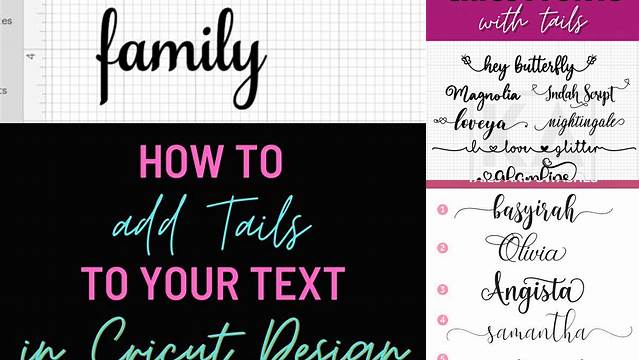
Cricut Access Fonts With Tails: Unleash Your Creativity!
Hey crafting enthusiasts! Are you ready to take your Cricut projects to the next level? Today, we're diving deep into the wonderful world of Cricut Access fonts with tails. These fonts are seriously awesome, offering a touch of elegance, flair, and personality that can transform your designs from simple to stunning. Get ready to explore how these fonts work, where to find them, and how to make the most of them in your creative endeavors. Let's jump in!
Finding Your Perfect Cricut Access Font with Tails
So, what exactly are we talking about when we say "fonts with tails"? Essentially, these are fonts where the letters have extended lines or flourishes that gracefully connect to the next letter, creating a flowing, handwritten look. Think of elegant scripts, romantic cursive, and fonts that instantly add a touch of sophistication to anything you create. The beauty of Cricut Access is that it provides a treasure trove of these fonts, ready for you to use! Finding the perfect font with tails is the first step toward crafting gorgeous designs. Start by exploring the Cricut Design Space library. In the font selection, you can filter by font style, which will help narrow down your choices. Look for categories like "script," "cursive," or "handwritten." These are the most likely places to find fonts with tails. When you're browsing, pay close attention to the previews. Many fonts with tails will show how the letters connect, so you can get a sense of the overall look. Consider the project you're working on. Are you creating a wedding invitation, a personalized gift, or a home decor piece? The font should complement the style of the project. A playful font might be great for kids' projects, but an elegant script is more fitting for formal events. Don't be afraid to experiment! Try out a few different fonts with tails on your design to see which one looks best. You can easily change the font in Design Space until you find the perfect match. Remember that the key is to find a font that resonates with you and enhances your project.
The Benefits of Using Fonts with Tails
Using fonts with tails can take your Cricut projects to the next level. The flowing, connected letters create a sense of artistry and elegance. They can elevate projects from simple to extraordinary. Fonts with tails are perfect for adding a personal touch to gifts, invitations, and home decor. They can transform a plain project into something special. These fonts are ideal for conveying a sense of sophistication. Consider how a beautifully crafted script font can turn a simple name tag into a memorable keepsake. This is where the magic happens! From creating beautiful wedding invitations to adding a personal touch to your home decor, the possibilities are endless. Fonts with tails can also enhance the readability of your designs. When used correctly, the connected letters can create a more visually appealing and harmonious look. Imagine the impact of a delicate cursive font on a personalized sign or the elegant touch it adds to your project. When used in moderation, these fonts can make your projects stand out. This added style makes a memorable impression, and your creations will be talked about!
Troubleshooting Font Connection Issues
Sometimes, the letters in a font with tails might not connect perfectly, or you might encounter other issues. Don't worry; these are usually easy fixes! Make sure that the letters are overlapping slightly. If the letters aren't touching, the tail won't connect properly. Adjust the letter spacing to ensure they overlap. After the letters are overlapping, use the "Weld" feature. This will join the letters together, creating a seamless design. If you're having trouble with specific letters, you can manually adjust their positions. Ungroup the text, and then move individual letters slightly to achieve the desired connection. Another common issue is the appearance of unwanted cut lines. This can happen if the tails overlap too much or if the font is not designed for cutting. To fix this, use the "Weld" feature to remove any overlapping lines. If you are still facing issues, make sure your Design Space software is updated to the latest version. Sometimes, software updates can resolve compatibility issues. Finally, consider the cutting settings you're using. Ensure your blade is set to the appropriate material and pressure. Experiment with different settings until you get a clean cut. With a little patience and these tips, you'll be creating beautiful designs in no time!
Pairing Fonts with Tails: Complementary Combinations
One of the most exciting aspects of working with Cricut Access fonts with tails is the opportunity to combine them with other fonts. The art of font pairing can elevate your designs from good to exceptional. Choosing the right font combinations can create visual harmony and add depth to your projects. Consider what you want to communicate with your design. A bold, sans-serif font can provide a strong contrast to a delicate script font with tails, drawing attention to both elements. Think of this example: use a script font for a name, and pair it with a simple, easy-to-read font for the date. The two fonts work together to make the design stand out! Here are some tips to guide you through font pairing: Select a font with tails as your primary font and use a simpler font for headings or supporting text. The contrasting styles will make your design visually interesting. Consider using a sans-serif font for the body text and a script font for the titles or accents. Make sure the fonts complement each other. A good way to find the right fonts is to look for fonts from the same design family. These fonts are created to work together, making them easy to match. Do not use too many different fonts in one design. This will distract the eye. Instead, stick to two or three fonts at most. Test your font combinations before you start cutting. Play around with different combinations to see what works best. Adjust the font size and spacing to enhance the overall look. With some creativity, you will be creating amazing font combinations.
Font Pairing Examples for Different Projects
Let's explore some font pairing examples to spark your creativity for using Cricut Access fonts with tails! For wedding invitations, use an elegant script font with tails for the names, along with a classic serif font for the body text. This combination gives a sense of romance and formality. When designing baby shower invitations, use a playful script font for the baby's name and a clear sans-serif font for the details. These fonts capture the lightheartedness of the event. For personalized gifts, use a bold, modern font for the name and a script font with tails for a heartfelt message. This combination will make the gift unique. When creating home decor pieces, use a rustic or farmhouse-style font paired with a flowing script font. The contrasts create a balance between the modern and vintage design. For labels and organization, choose a simple, easy-to-read sans-serif font paired with a script font for the label name. In each case, the key is to balance the fonts to create a cohesive and visually appealing design. Think about how the fonts work together to enhance the overall look and feel of your project. The goal is to create a design that grabs attention, conveys the message, and leaves a lasting impression. The beauty of font pairing is that you can experiment and explore your creativity. With some practice, you will be creating amazing font combinations.
Cutting Cricut Access Fonts with Tails: Tips and Tricks
After choosing your font and designing your text, it's time to cut your Cricut Access fonts with tails. This can be a bit tricky, but the result is always worth the effort. To cut these fonts successfully, you'll need the right tools and settings. First, ensure that your blade is sharp. A dull blade can cause uneven cuts and tear the material. A fresh blade will give you the best results. Choose the right material settings for your project. The settings depend on the material you're using. Look for the specific material in Design Space and select it. After selecting the material, consider the size of your design. Fonts with tails are best for larger sizes because smaller details can be lost or cut poorly. Remember to weed your project carefully. Weeding is the process of removing the excess material from your cut design. Take your time and use a weeding tool to remove the small pieces and intricate details. Always do a test cut! Cut a small sample of your design to ensure that the settings are correct and the blade is cutting properly. If the cuts are not clean, adjust the blade settings or the material pressure. Take your time, and you’ll achieve clean cuts. With these tips, you’ll create stunning, professional-looking results.
Best Materials for Cutting Fonts with Tails
When it comes to materials for cutting your Cricut Access fonts with tails, the options are endless! Each material offers a unique look and feel, so consider your project when making your choice. For paper projects, cardstock is an excellent choice. It's easy to cut and comes in a wide variety of colors and finishes. For vinyl projects, permanent vinyl is perfect for creating signs, decals, and personalized gifts. It's durable and weather-resistant. Removable vinyl is ideal for temporary projects, such as wall decals or seasonal decorations. For iron-on projects, heat transfer vinyl (HTV) is the perfect choice. It's used to create custom apparel, bags, and other fabric items. For wood projects, use wood veneer or thin sheets of balsa wood. These materials add texture and dimension to your designs. For fabric projects, use felt or fabric sheets. The materials are perfect for creating patches, appliques, and other fabric crafts. For a more detailed look, explore materials like adhesive foil. The foil adds a touch of elegance to your projects. Experiment with various materials to find the perfect match for your design. Consider the type of project you're working on, the desired look, and the durability of the material. With a little experimentation, you'll discover the materials that help bring your vision to life.
Weeding and Transferring Fonts with Tails
Weeding and transferring your Cricut Access fonts with tails are crucial steps in the crafting process. These steps help ensure your design looks neat and professional. Weeding involves removing the excess material from your cut design. This is especially important for fonts with tails, as they often have intricate details. Start by using a weeding tool to carefully lift and remove the negative spaces. Take your time and work slowly to avoid tearing the material. Use a bright light to better see the details. For vinyl projects, transferring your design onto the final surface requires a transfer sheet. After weeding, place the transfer tape over the design. Use a scraper to burnish the tape, which helps adhere the design to the tape. Slowly peel the backing away from the design. This will transfer your design onto the transfer tape. Place the design onto your desired surface. Again, use the scraper to burnish the design onto the surface. Slowly peel the transfer tape away, leaving the design behind. For iron-on projects, use a heat press or iron to adhere the design to the fabric. Follow the heat press settings for the specific material. Place the design onto the fabric, cover it with a protective sheet, and apply heat. After the design has cooled, carefully peel the backing away. Take your time, and don’t rush these steps! With practice, you’ll master these techniques. You'll be on your way to creating professional-looking projects!
Troubleshooting Weeding and Transfer Issues
Sometimes, you might encounter some problems during the weeding and transfer process. But don't worry! Here are some troubleshooting tips. If your material tears during weeding, try adjusting your blade settings. A deeper cut setting might make the material easier to weed. If the small details are hard to remove, try using a more precise weeding tool. Tweezers or a craft knife can be helpful. If your design is not sticking to the transfer tape, make sure the tape is clean. Also, use a scraper to burnish the tape onto the design. If the design is not transferring to the surface, ensure that the surface is clean and dry. Also, make sure you're using the correct heat settings for your material. Always do a test cut to ensure your settings are right. If you're working with vinyl, use a transfer tape with the correct adhesive strength. A low-tack tape is often best for delicate fonts. If you encounter issues, take your time, and refer to the material's instructions. You'll be crafting beautiful projects in no time.
Designing with Cricut Access Fonts with Tails: Creative Project Ideas
Ready to unleash your creativity with Cricut Access fonts with tails? There are endless possibilities! Get inspired with these creative project ideas! Create custom wall art with personalized quotes or names. Design elegant wedding invitations and place cards. Make custom labels for your home organization projects. Design unique greeting cards for special occasions. Create personalized gifts, such as mugs, tumblers, or t-shirts. Design seasonal decorations, such as ornaments, banners, or signs. Personalize party decorations, such as banners, cake toppers, or favor tags. Create custom stencils for painting or engraving projects. With Cricut Access, the possibilities are endless. Don't be afraid to experiment and try new things. The more you create, the more ideas you'll have! With a little practice, you'll be creating beautiful projects.
Step-by-Step Project Ideas
Let's break down some step-by-step project ideas to get you started with Cricut Access fonts with tails. To create a personalized wooden sign, start by selecting a script font. Design the text in Design Space, and then cut it out of vinyl. Transfer the vinyl design to a wooden surface. Paint the wood and remove the vinyl to create a negative space effect. To create custom labels for your pantry, start by designing your labels in Design Space. Choose a script font for the label name and a simple font for the supporting text. Cut the design from permanent vinyl. Apply the vinyl labels to your pantry containers. For a personalized t-shirt, design your text in Design Space. Choose an elegant script font and cut the design from heat transfer vinyl (HTV). Weed your design and use a heat press or iron to apply it to the t-shirt. For a custom greeting card, start by designing the card in Design Space. Use a script font for the message or name. Cut the design from cardstock. Add embellishments to create a unique greeting card. With Cricut Access and these project ideas, you can bring your creativity to life!
Advanced Techniques for Using Fonts with Tails
Ready to take your skills with Cricut Access fonts with tails to the next level? Here are some advanced techniques to help you. Explore layering techniques. Layering involves creating designs using multiple layers of different materials. This will add depth and dimension to your projects. When layering, ensure your layers align perfectly. You can also use the "Slice" or "Weld" features to merge the designs. When using intricate fonts, you might need to adjust the spacing between letters. Reduce the spacing to make your design look balanced. Consider using different materials to make your project stand out. Try using glitter vinyl, foil, or holographic vinyl to create unique effects. The more materials you use, the more professional your projects will look. With these techniques, you'll be creating high-quality projects! If you practice these methods, you will see your projects stand out.
Achieving Professional Results with Advanced Techniques
To achieve professional results with Cricut Access fonts with tails, focus on these advanced techniques. Experiment with different color combinations to make your designs stand out. Consider using a color wheel to find complementary colors or create a visual harmony. Pay attention to the kerning and letter spacing. These details will improve the overall look of your design. The goal is to create a visually appealing design that is easy to read. Consider using a shadow or offset effect to add depth to your designs. You can create this effect in Design Space or with the Cricut offset tool. To make your projects more professional, research the best practices for the material you are using. For vinyl, research the best ways to apply the material to different surfaces. For fabric projects, research the best way to heat press designs onto different materials. The key to achieving professional results is to pay attention to detail. If you want to create high-quality projects, you should focus on your designs. Take your time, experiment with different techniques, and don’t be afraid to make mistakes. Each mistake is a learning opportunity, and you will learn a lot!
Cricut Access Font with Tails: FAQs and Troubleshooting
Have questions about Cricut Access fonts with tails? Here are answers to some frequently asked questions, along with some common troubleshooting tips. What is Cricut Access? Cricut Access is a subscription service that provides access to thousands of images, fonts, and projects. How do I find fonts with tails? In Design Space, filter for script, cursive, or handwritten font styles. How do I weld my text? Select your text, and then click the "Weld" button in the lower right corner of the screen. Why aren't my letters connecting? Make sure the letters overlap slightly before welding. How do I fix unwanted cut lines? Use the "Weld" feature to remove any overlapping lines. What do I do if my blade isn't cutting properly? Check that the material settings are correct. Also, check that your blade is sharp. By knowing these common questions, you'll be well on your way to success! If you're still experiencing issues, here are some troubleshooting tips. Try restarting Design Space or your Cricut machine. Sometimes, a simple restart can resolve software glitches. If your machine isn't cutting properly, make sure your blade is correctly installed and in good condition. Ensure that your material is securely attached to the mat. If the machine is not working as expected, make sure your computer meets the minimum system requirements. Always update your Design Space software to the latest version. With practice and troubleshooting, you'll be a master of fonts with tails.
Common Issues and Solutions
Let's dive into some common issues and solutions you might encounter when working with Cricut Access fonts with tails. One common issue is the letters not connecting properly. To fix this, adjust the letter spacing to overlap the letters before welding. If the font isn't welding correctly, try ungrouping the text and welding the individual letters. Sometimes, you'll have issues with the cutting of the design. If the blade is not cutting through the material, check the material settings and blade sharpness. Also, make sure your material is securely attached to the mat. For designs with small details, the details can sometimes be lost. If this happens, consider increasing the size of your design or using a different font. If you have problems with the software, ensure your software is up to date. Sometimes, the new software updates can cause issues. If you are still experiencing problems, try restarting your computer or Design Space. The most important thing to remember is to stay patient and keep experimenting. Each problem is an opportunity to learn something new. With these tips, you'll be well on your way to creating beautiful projects!
The Future of Fonts with Tails in Cricut Design Space
What does the future hold for Cricut Access fonts with tails? As Cricut continues to evolve, the options for these fonts will likely expand even further. Cricut is constantly adding new fonts, so the selection of fonts with tails will likely grow. This will give you even more options for your creative projects. The software might also add more features to enhance how you can use these fonts. Expect improvements to the font customization options. Cricut may add more tools to help you adjust the tails, curves, and spacing. The integration of new technologies could open up even more possibilities. Imagine being able to create intricate designs with ease! The use of AI may enhance the design process by suggesting the font combinations and helping you fine-tune your designs. As the Cricut community grows, there will be many resources for you. Consider joining online communities. This will provide more resources for you. Staying up-to-date on the latest design trends will help you create more impressive designs. The future is bright for these fonts! As technology advances, you can look forward to even more exciting ways to use these fonts. With a little imagination, you can create stunning projects!
Trends and Innovations in Font Design
Let’s explore some trends and innovations in font design that will impact how you use Cricut Access fonts with tails. We're seeing more emphasis on unique and expressive fonts. These fonts will create designs that are more dynamic and eye-catching. We can also expect to see more fonts with customizable features. Designers can adjust the tails, curves, and spacing. As software improves, expect to see more font pairings. The software will create an easy-to-use combination of fonts. Also, expect to see more fonts specifically designed for cutting machines. These fonts will have optimized features for cutting and weeding. Digital design is growing, so you can expect to see more online resources. Consider taking online courses and attending workshops to sharpen your skills. Also, follow other designers for inspiration and new techniques. The more you immerse yourself in the world of font design, the more you will learn. With these trends and innovations, you'll be creating amazing designs! As technology develops, you can look forward to even more exciting ways to design with fonts. With a little imagination, you can create stunning projects!